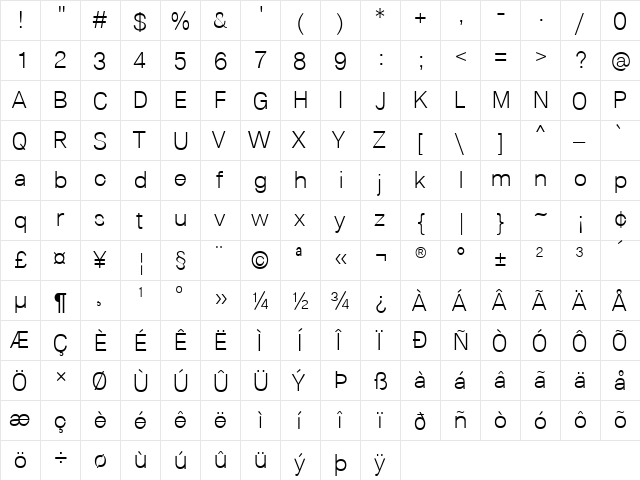
Lunchtype22 Light
| Foundry | Steppot |
| Designer | Steppot |
Design Context for Lunchtype22 Typeface
Lunchtype22 takes a measured approach to typography — its balanced proportions and neutral character make it a reliable workhorse for both digital and print work. Its slender proportions lend an understated elegance to any composition.